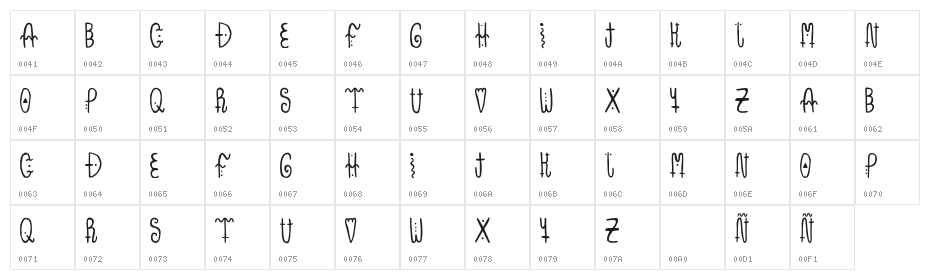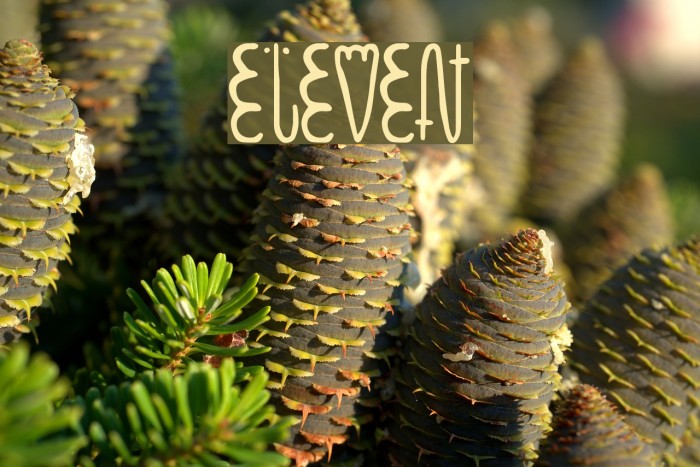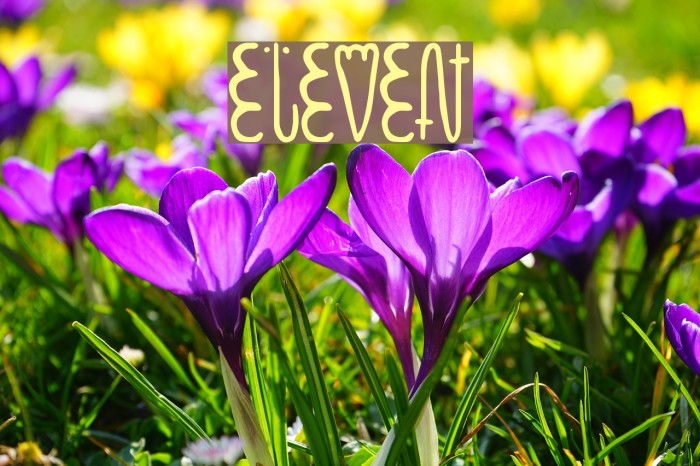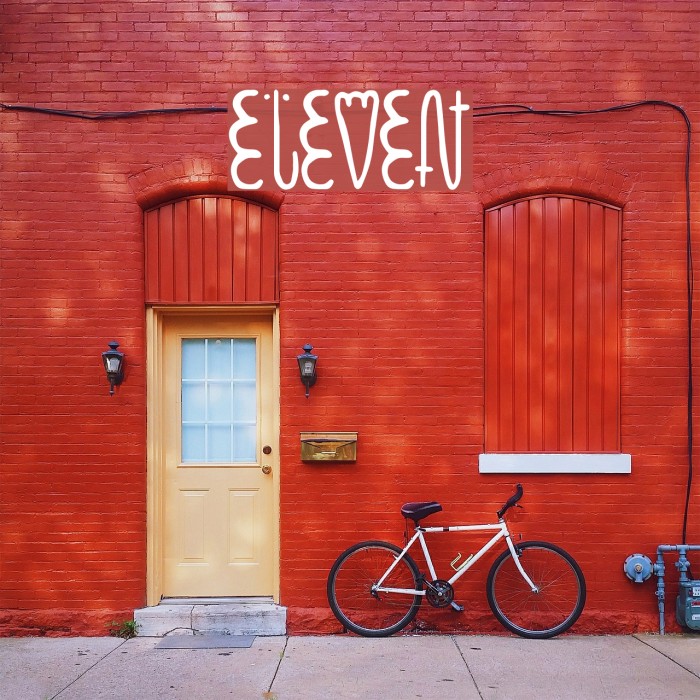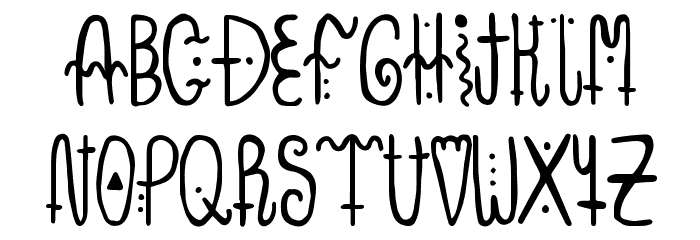
eleven Font
eleven Description
This font features a highly decorative and whimsical style, characterized by its unique and playful letterforms. Each character is adorned with intricate details, such as dots, curls, and geometric shapes, giving it a distinct and artistic appearance. The uppercase letters are particularly elaborate, with varying line thicknesses and ornamental elements that create a sense of movement and flair. The overall design is reminiscent of a hand-drawn, artistic script, making it suitable for creative and expressive projects. Its distinctive style captures attention and adds a touch of personality to any design.
| Use Case | Headlines, Artistic Branding, Invitations |
| Proposed Projects | Ideal for creative projects such as invitations, posters, artistic branding, and decorative headlines. |